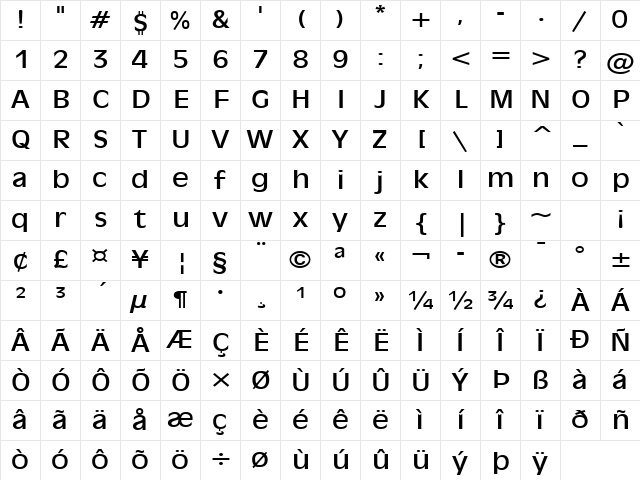
Antiqua 101 Wide Normal
Antiqua 101 Wide Family
Antiqua 101 Wide Normal
Complete Antiqua 101 Wide Normal glyph index. Displaying only characters natively supported by Antiqua 101 Wide Normal font.
Design Context for Antiqua 101 Wide
Antiqua 101 Wide is a composed and adaptable typeface that performs quietly and consistently across a wide range of design contexts.
Pro Tip: Use Antiqua 101 Wide in both headline and body roles to test its range before committing to a single application.